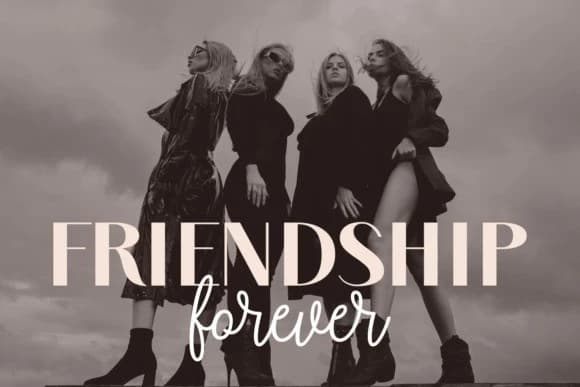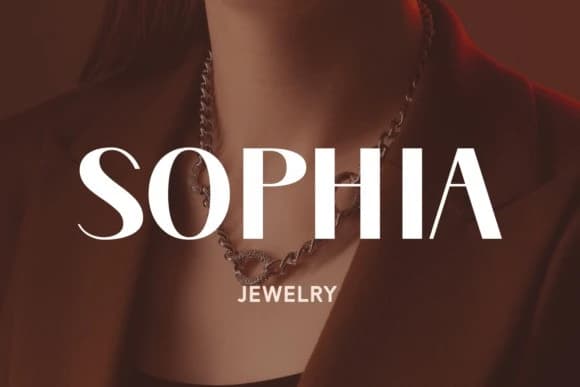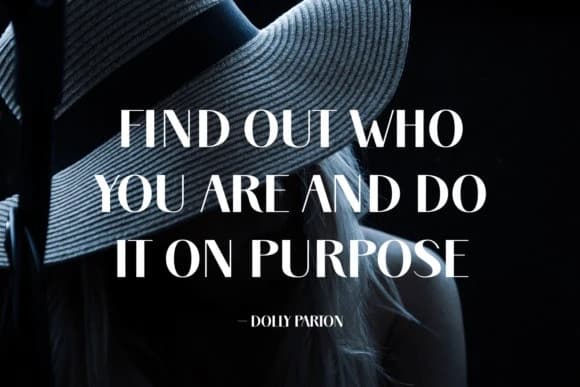
Burning Longing Font
Burning Longing Font is a bold and assertive sans serif font. No matter the topic, this font will be an incredible asset to your fonts' library, as it has the potential to elevate any creation.